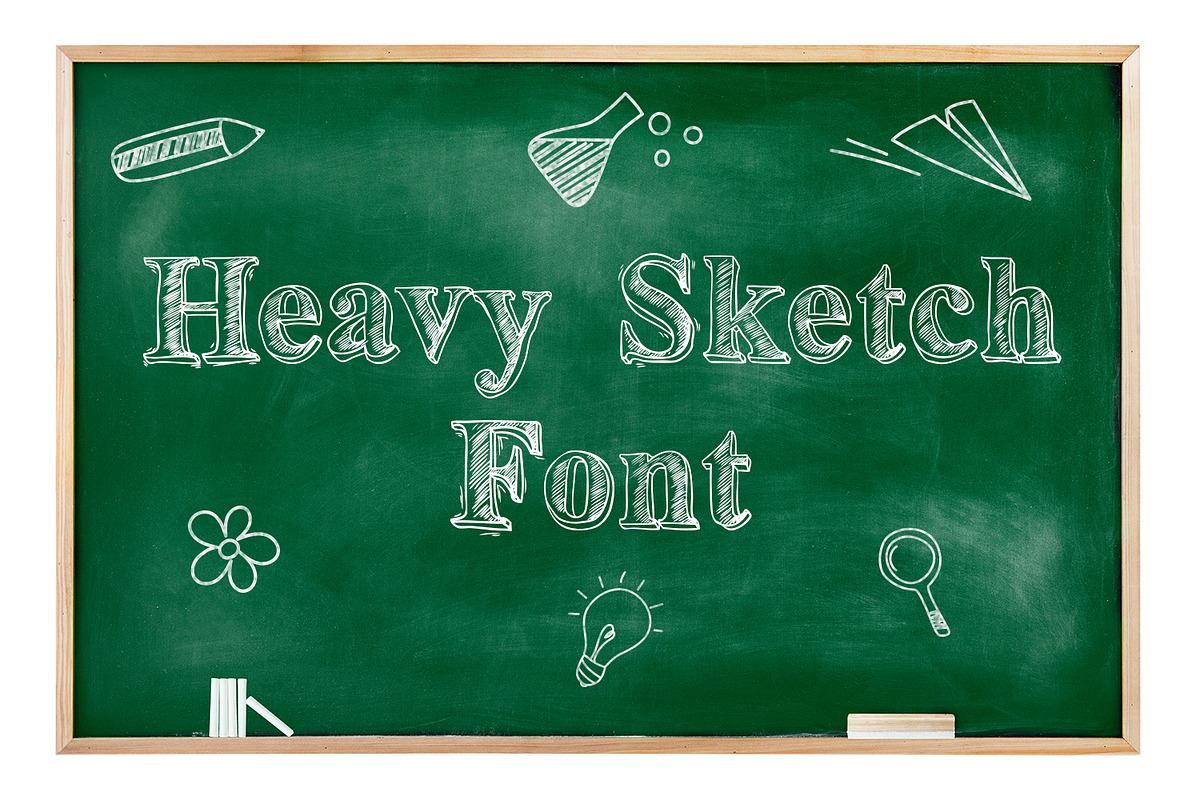
Please note that you must purchase this font for commercial use. You can download Heavy Sketch Font for free, strictly for personal testing purposes only. Heavy Sketch is a bold, hand-drawn display font with a rough, sketched texture that gives your typography a raw, artistic edge. With thick strokes and a playful, unfinished look, Heavy Sketch Font Free Download is perfect for poster titles, children's illustrations, comic-style graphics, school projects, DIY branding, and creative social media content.
Its organic, doodle-like feel adds character and a handcrafted vibe to any design. The font typically includes uppercase letters, numerals, punctuation, and basic multilingual support—making it versatile for both casual and expressive design work.
Whether you're going for fun, edgy, or creative chaos, Heavy Sketch adds energy and uniqueness to your type.